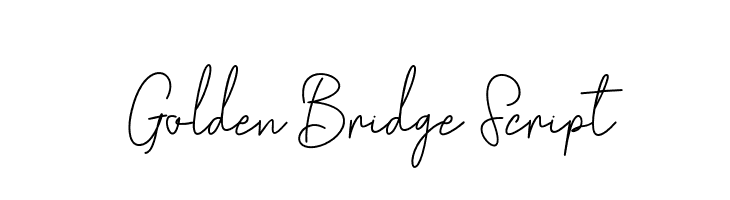
A futuristic, geometric font with sharp, angular edges and a sleek design.
A bold, angular font with a dynamic and energetic style.
A playful, handwritten script font with flowing, interconnected strokes.
A bold serif font with strong, angular serifs and a modern twist.
A bold, italic font with a dynamic, condensed style and high contrast.
An expressive and dynamic handwritten font with irregular, textured strokes.
An elegant, high-contrast script font with flowing, cursive strokes.
A delicate, flowing script font with elegant, elongated letterforms.
A playful handwritten font with fluid, slightly irregular strokes.
A bold, futuristic font with angular edges and a dynamic slant.
设计师偏爱 Oramac Light, Soman Regular, Effendi, Golden State Serif PERSONAL Black and Highwind Italic,因为其造型干净、适用范围广—— 从品牌识别到落地页、海报都能胜任。